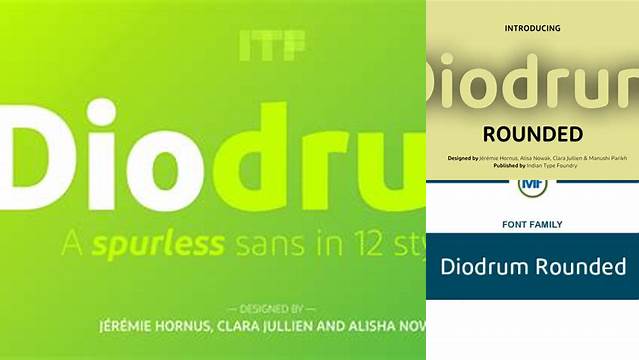
Diodrum Rounded: Free Font Download Guide
Diodrum Rounded Regular Font: An Overview
Okay, so what exactly is Diodrum Rounded Regular? It's a font that falls into the sans-serif category, known for its clean lines and rounded edges. This gives it a friendly and approachable vibe, making it super versatile for a wide range of projects. Whether you're working on a website, a logo, or even a presentation, Diodrum Rounded can bring a touch of modern elegance to the table. The font is designed with readability in mind, ensuring your message gets across clearly and stylishly. Think of it as the Swiss Army knife of fonts – adaptable and reliable.
Diodrum Rounded Regular is particularly favored for its balanced design. The rounded terminals give it a softer appearance compared to fonts with sharp corners, making it less harsh on the eyes. This characteristic makes it ideal for body text as well as headlines, providing a cohesive look throughout your design. Plus, its contemporary style ensures your work stays current and visually appealing. Many designers appreciate its versatility, using it across various mediums, from digital interfaces to print materials. It’s a font that quietly elevates your design without being overly flashy, a true testament to its thoughtful craftsmanship. In short, Diodrum Rounded Regular is a fantastic option if you're aiming for a clean, modern, and approachable design.
Why Choose Diodrum Rounded for Your Projects?
So, why should you choose Diodrum Rounded? Well, there are tons of reasons! First off, its clean and modern aesthetic makes it a fantastic choice for a variety of projects. Think logos, websites, posters – you name it! The rounded edges give it a softer, more approachable feel compared to other sans-serif fonts, which can sometimes feel a bit too sterile. Plus, it’s super readable, meaning your message will come across loud and clear. When selecting a font, readability is crucial, especially for body text and user interfaces. Diodrum Rounded excels in this area, ensuring that your content is easily digestible for your audience. This is particularly important for websites and apps, where user experience is paramount.
Furthermore, the versatility of Diodrum Rounded makes it a go-to option for many designers. It pairs well with a variety of other fonts, giving you the flexibility to create unique and engaging designs. Whether you're aiming for a minimalist look or something more elaborate, this font can adapt to your needs. Its balanced design also means it works well in both headlines and body text, providing a cohesive visual identity for your project. By choosing Diodrum Rounded, you're opting for a font that offers both aesthetic appeal and practical functionality, making it a valuable asset in your design toolkit. Consider its adaptability and how it can enhance the overall look and feel of your various creative endeavors.